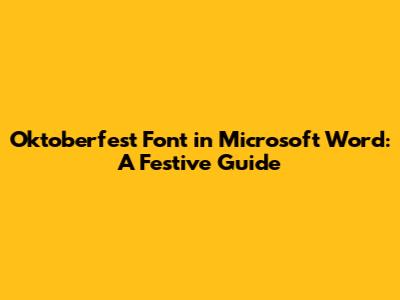
- Blackletter Fonts: Also known as Gothic or Old English fonts, these are characterized by their ornate, angular strokes. They are reminiscent of traditional German typography and add an authentic touch.
- Bavarian-Inspired Fonts: These fonts often incorporate elements such as rounded serifs, decorative swirls, and a generally jovial appearance. They aim to capture the celebratory mood of Oktoberfest.
- Rustic and Hand-Drawn Fonts: Fonts that appear hand-drawn or have a rustic texture can also work well, especially for creating a more casual and welcoming vibe. These fonts can suggest the hand-crafted nature of traditional German crafts and signage.
- Heading: Use a Blackletter font like Fette Fraktur for the event title, such as "Oktoberfest Celebration!"
- Subheadings: Use a simpler sans-serif font like Open Sans for details like date, time, and location.
- Body Text: Keep the body text concise and easy to read, using a font like Arial or Calibri.
- Title: Use a bold, eye-catching font like Deutsch Gothic for the poster title.
- Text Hierarchy: Use different font sizes and styles to create a clear hierarchy of information.
- Menu Headings: Use a decorative Bavarian-inspired font for the menu headings, such as "Appetizers," "Main Courses," and "Desserts."
- Item Descriptions: Use a clear and legible font for the item descriptions, ensuring customers can easily read the menu.
Oktoberfest, the world's largest Volksfest, is synonymous with German culture, beer, and merriment. If you're planning an Oktoberfest-themed event or simply want to add a touch of Bavarian flair to your documents, choosing the right font in Microsoft Word is crucial. In this guide, we'll explore how to find and use fonts that capture the spirit of Oktoberfest, ensuring your invitations, posters, and other materials stand out.
Understanding the Essence of Oktoberfest Fonts
When diving into Oktoberfest fonts, it's essential to understand what makes a font suitable for this theme. Think about the visual elements associated with the festival: traditional German signage, beer labels, and festive decorations. Fonts that evoke these images typically fall into the following categories:
To truly capture the spirit of Oktoberfest, consider fonts like Fraktur, Fette Fraktur, or even custom-designed Bavarian fonts. These typefaces bring an authentic German feel to your projects, making them instantly recognizable and appealing. The key is to balance authenticity with readability, ensuring your message is both visually striking and easy to understand. When selecting a font, think about its overall impact and how it complements other design elements in your document. Remember, the goal is to transport your audience to the heart of Munich, even if just through the power of typography. With the right font, your Oktoberfest-themed project will be a resounding success.